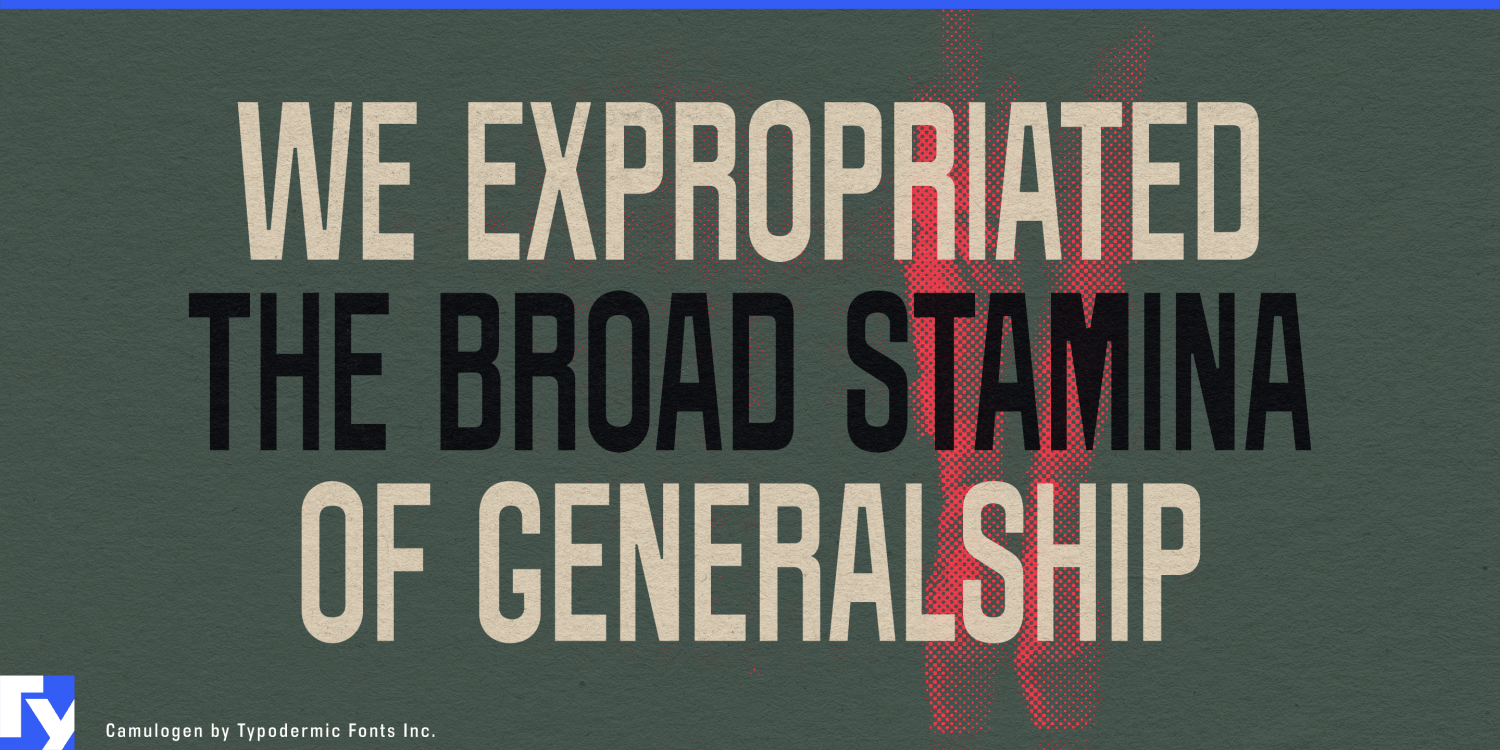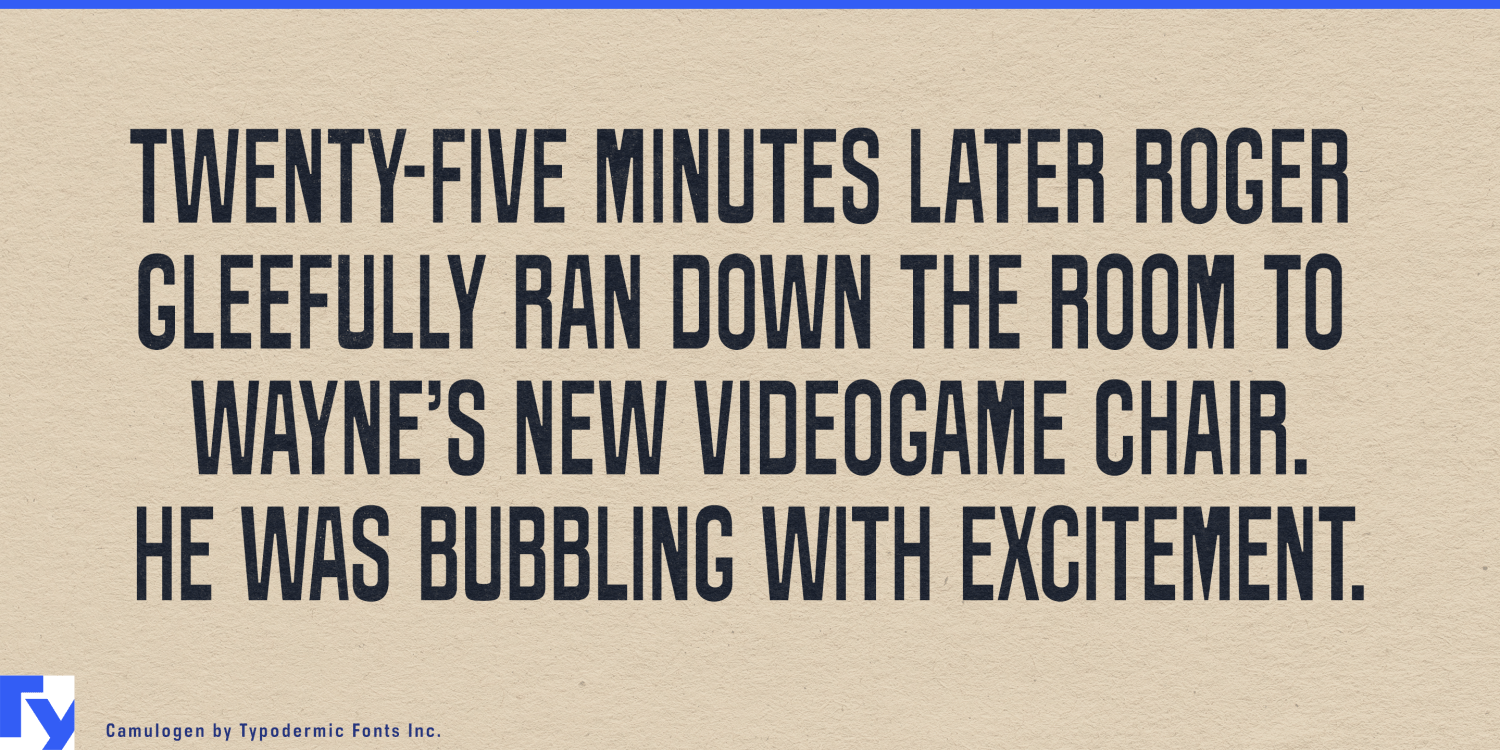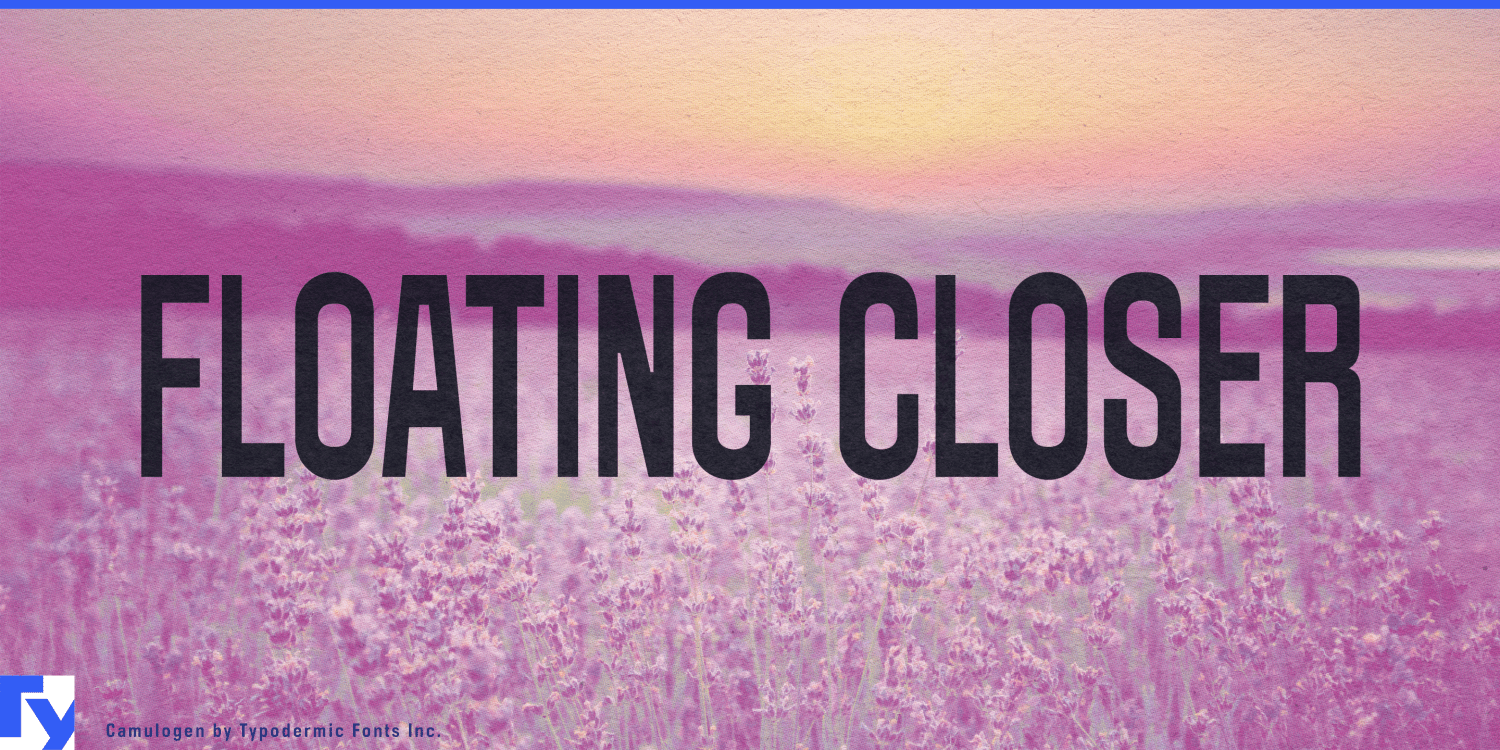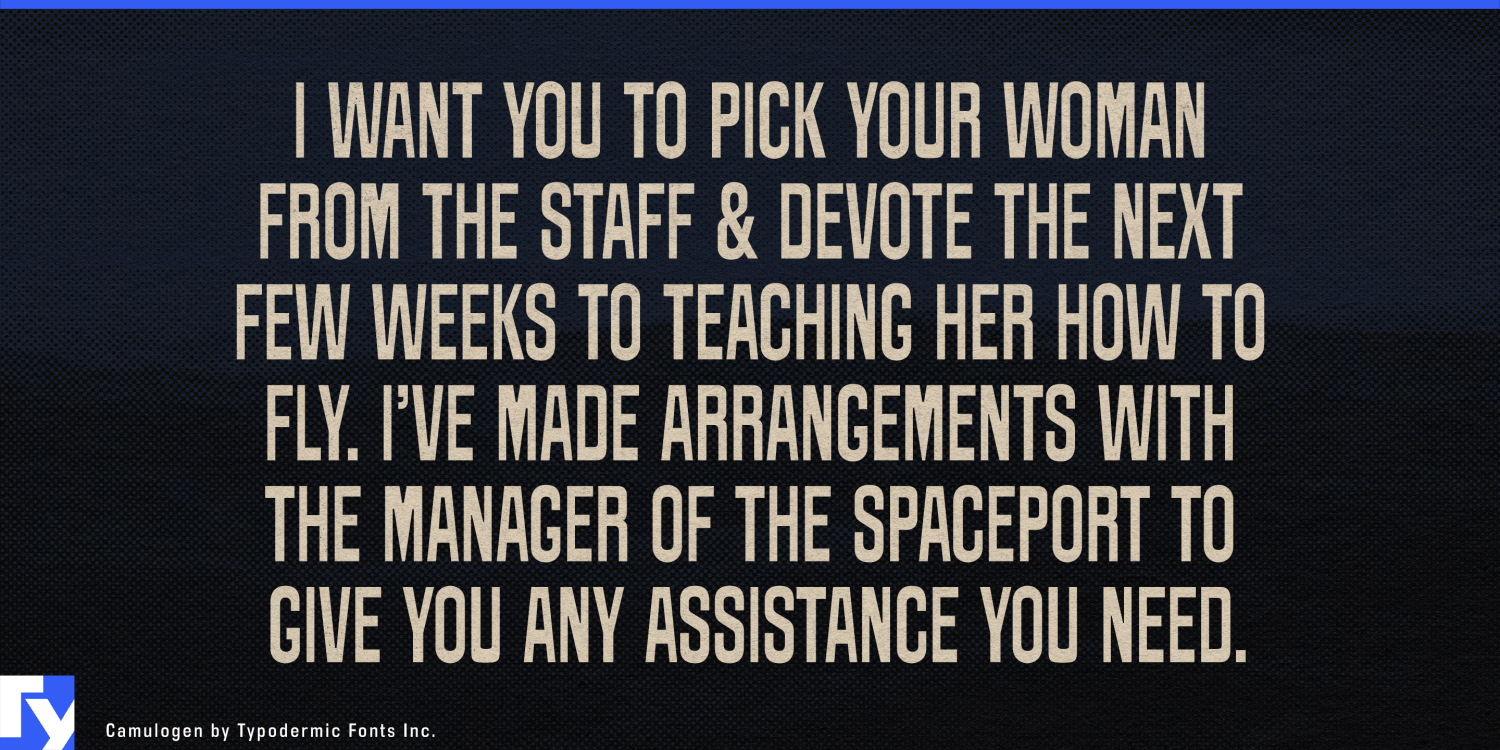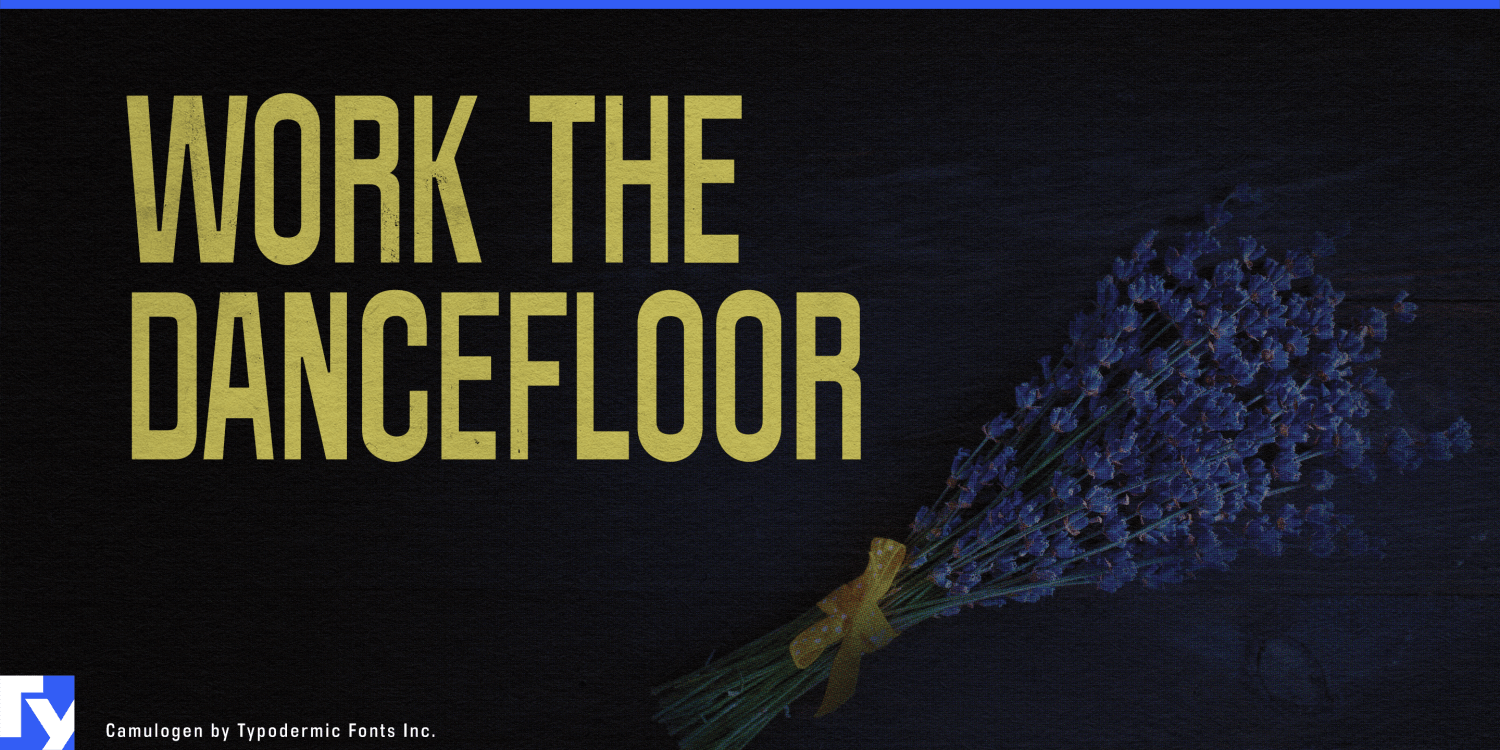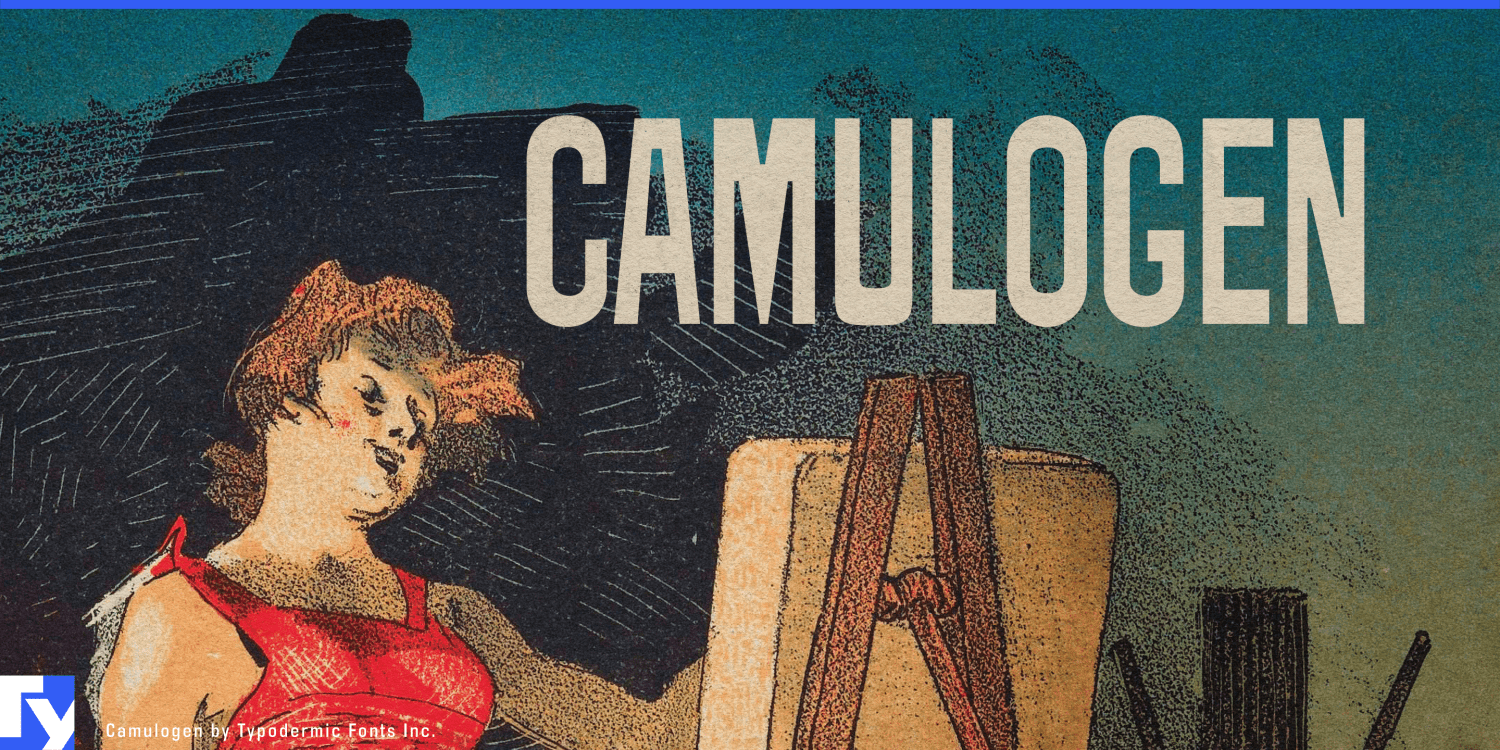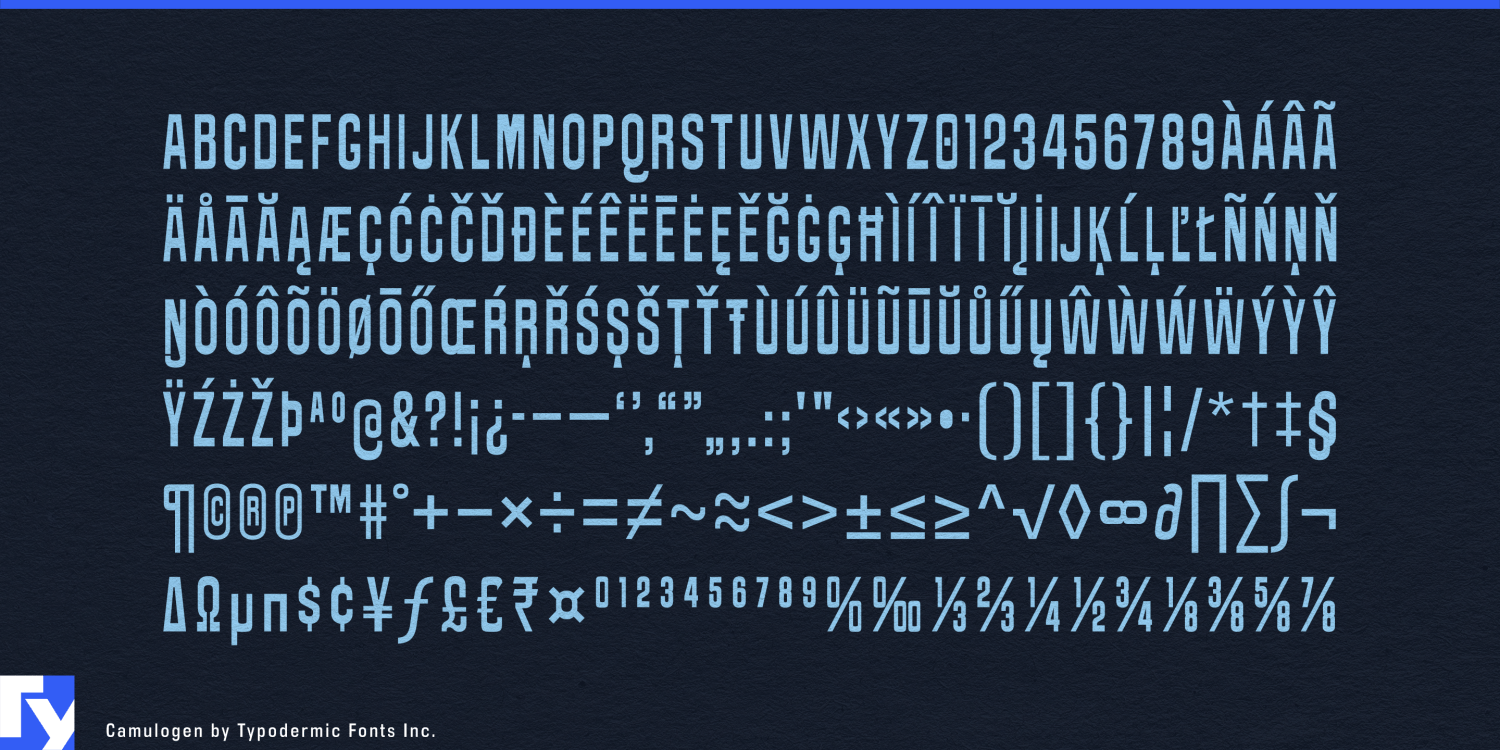
Camulogen
About Camulogen
Step into the glittering world of the Belle Époque with Camulogen, a typeface that captures the essence of Parisian extravagance at the turn of the 20th century. Inspired by the bold poster designs that once adorned the walls of Montmartre, this…